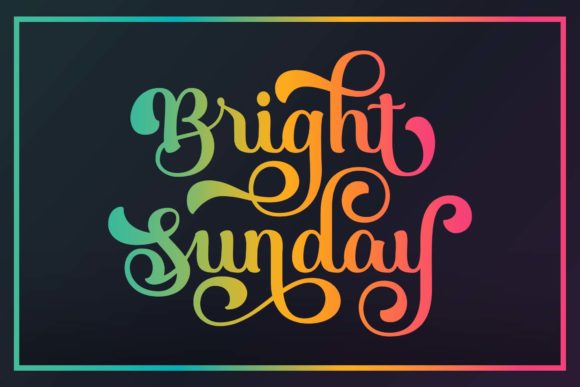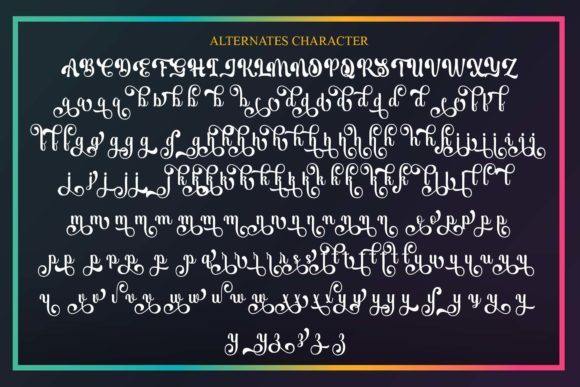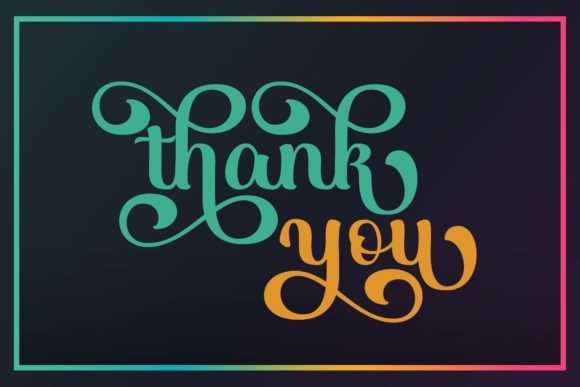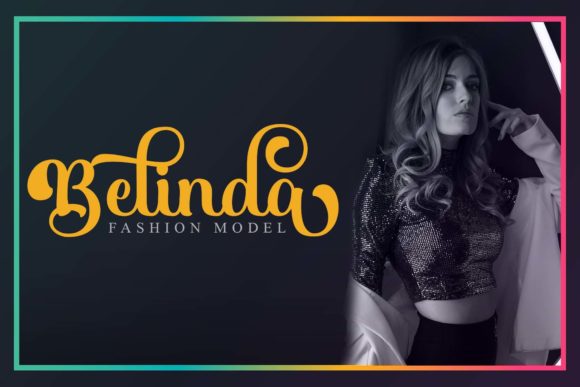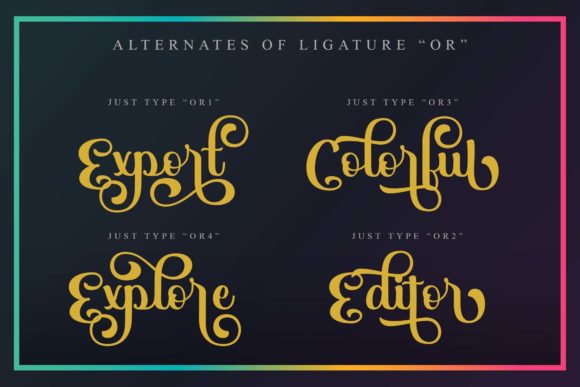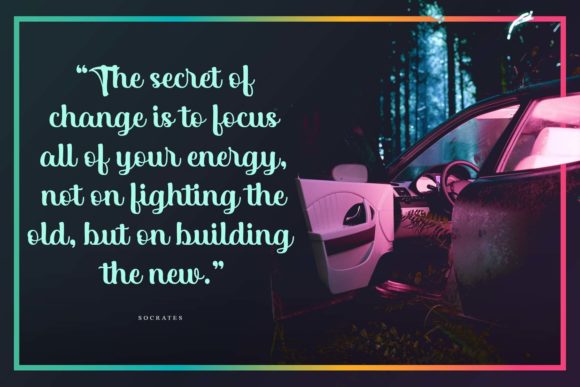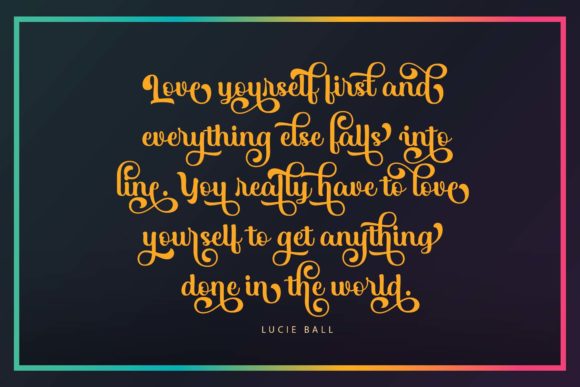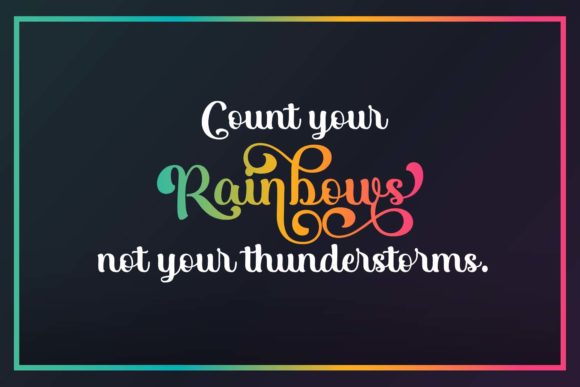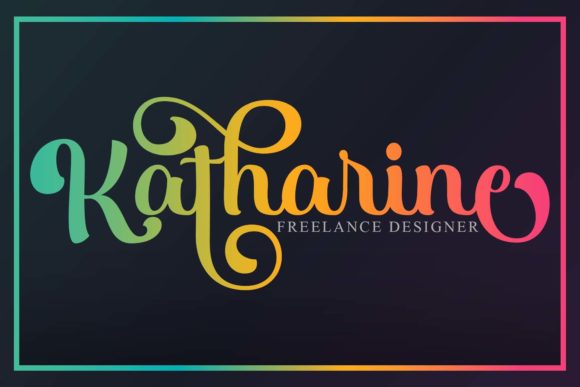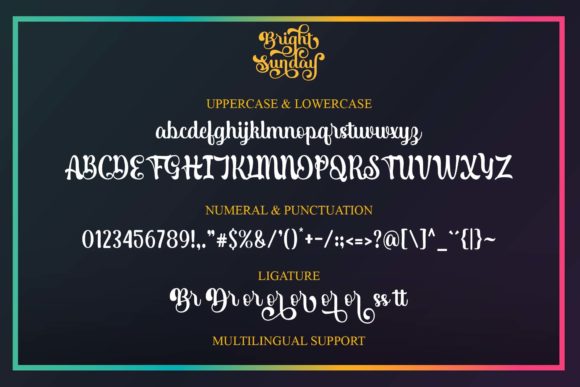
Bright Sunday Font
About Bright Sunday Font
Bright Sunday is an incredibly detailed and beautiful handwritten font. It is PUA encoded which means you can access all of the glyphs and swashes with ease!